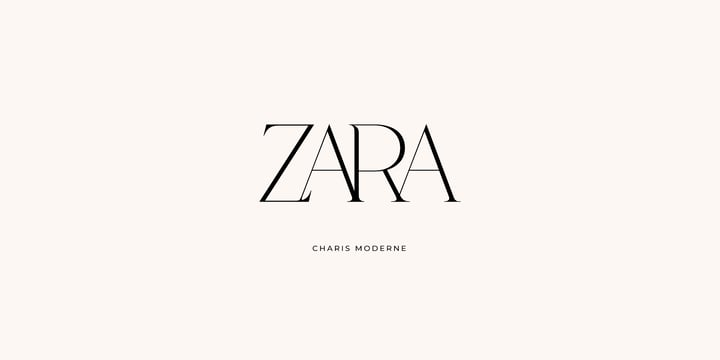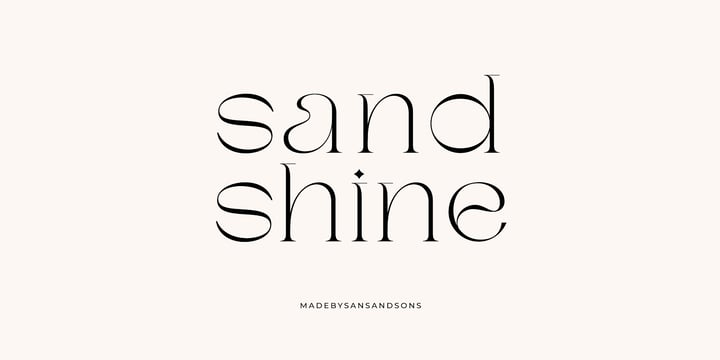
Charis Moderne Font
Charis Moderne FontCharis Moderne is Modern Serif with Elegant and Luxury Style and each unique letters designed to create harmoniously, charming and lend themselves to high end branding, product packaging, logo designs & invitation designs.